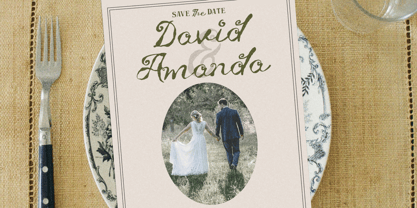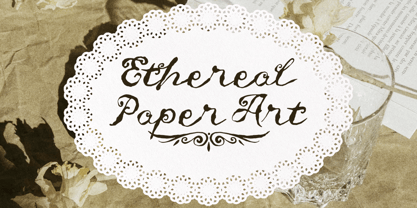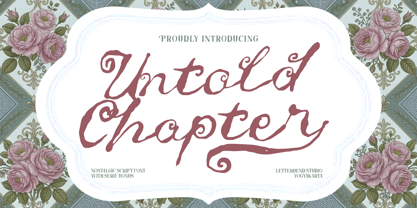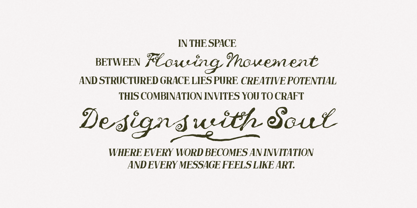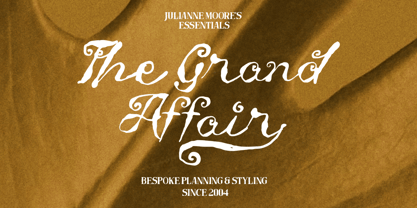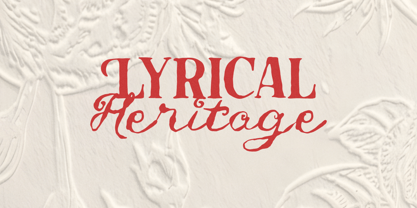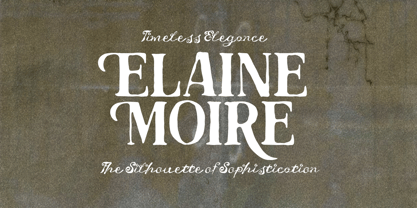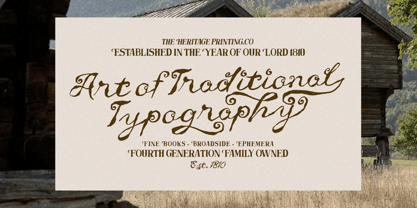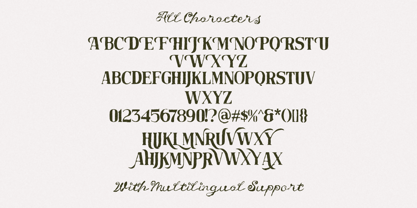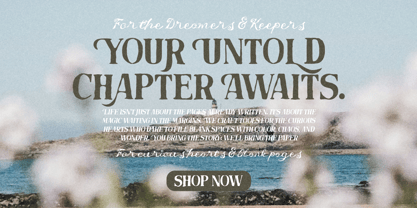
Untold Chapter
by Letterhend
The Untold Chapter Font Family was designed by Hendry Juanda and published by Letterhend. Untold Chapter contains 3 styles and family package options. More about this family
Rustic, romantic, and full of storybook charm—Untold Chapter captures the feeling of handwritten letters tucked inside an old diary. Its flowing nostalgic script brings graceful curves, playful swashes, and a warm vintage touch that feels both elegant and personal. Paired with a subtle serif bonus, this font is perfect for designs that want to feel timeless and heartfelt. Features : Uppercase & lowercase Numbers and punctuation Alternates & Ligatures Multilingual Support PUA encoded